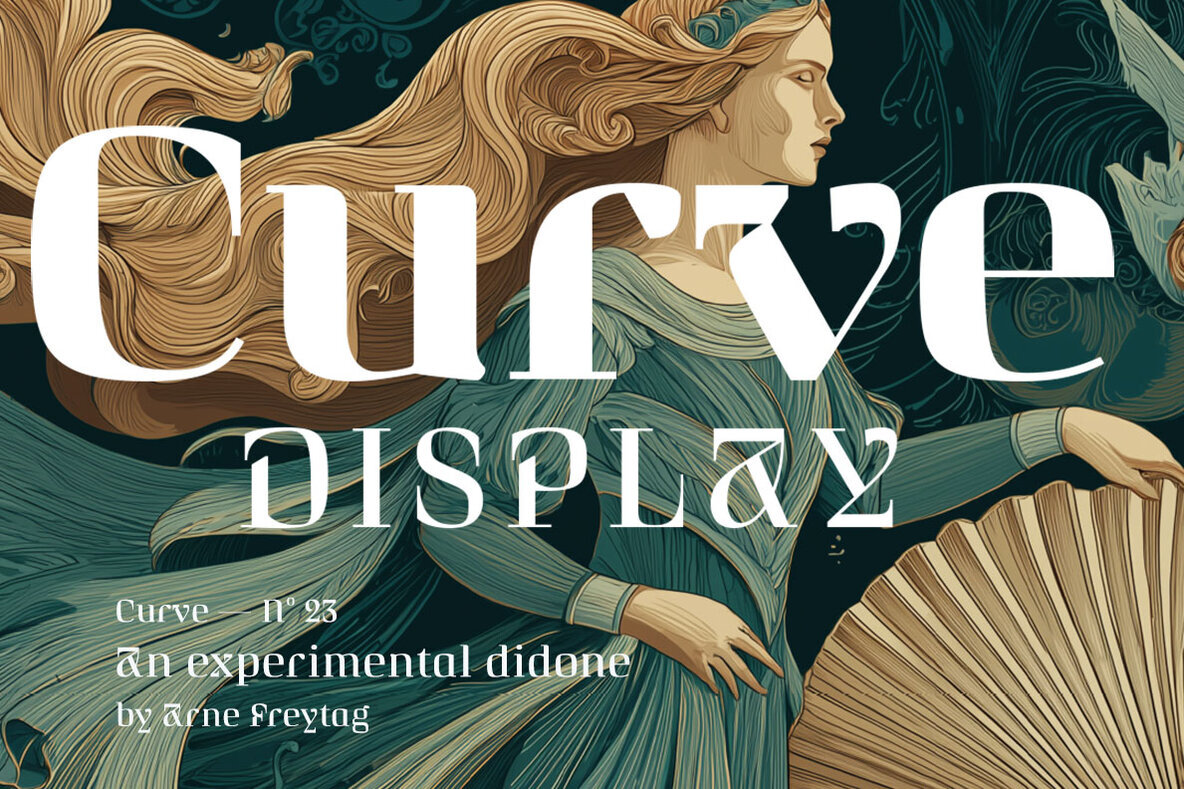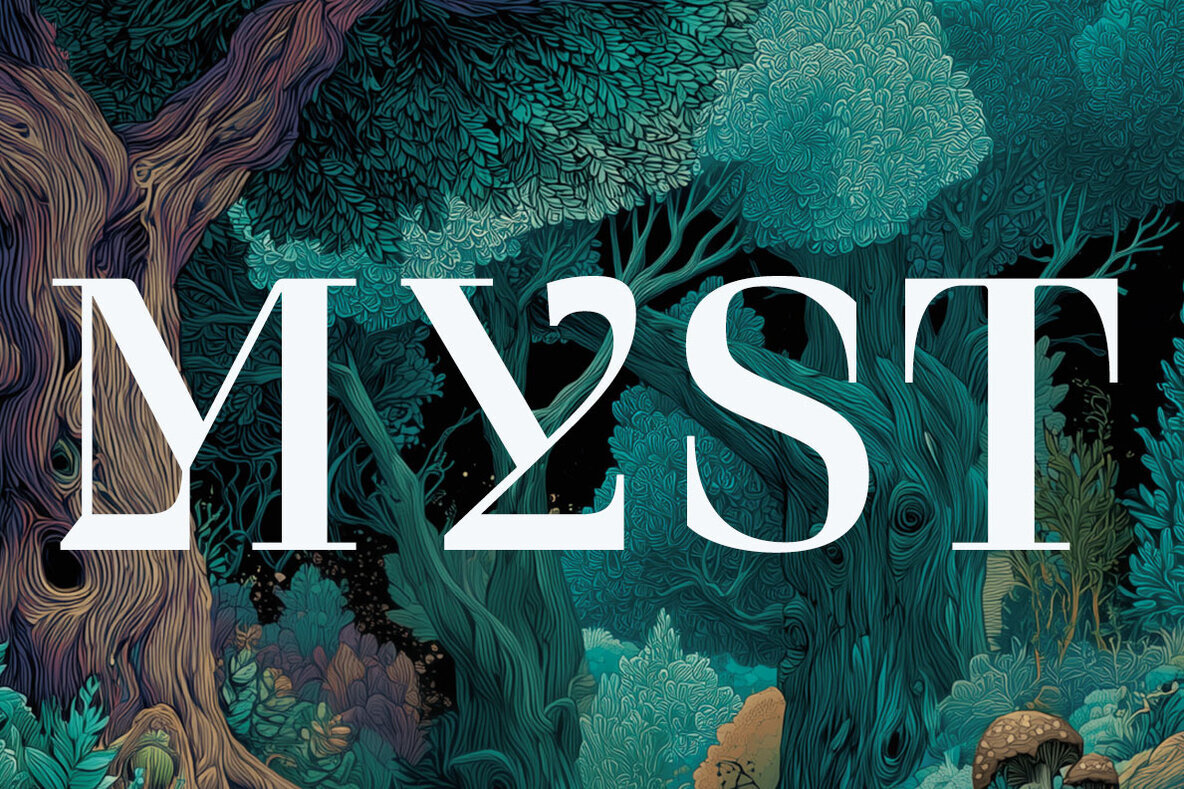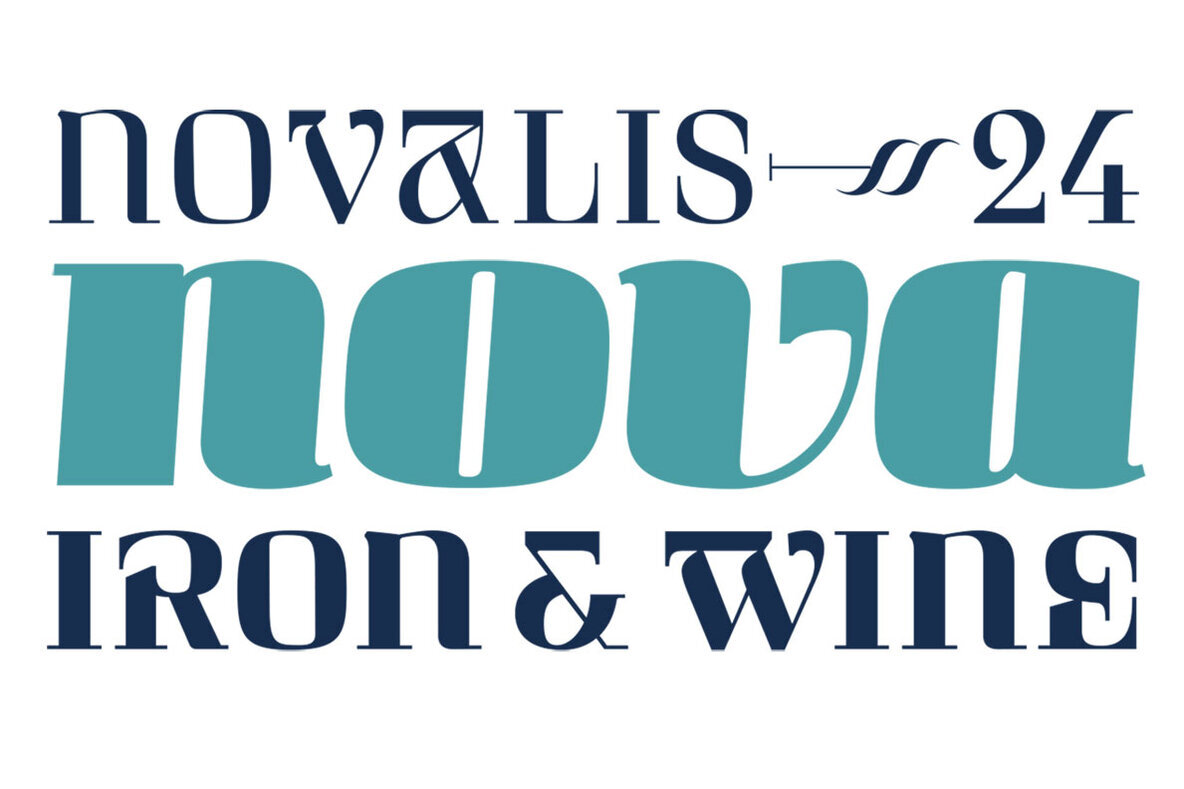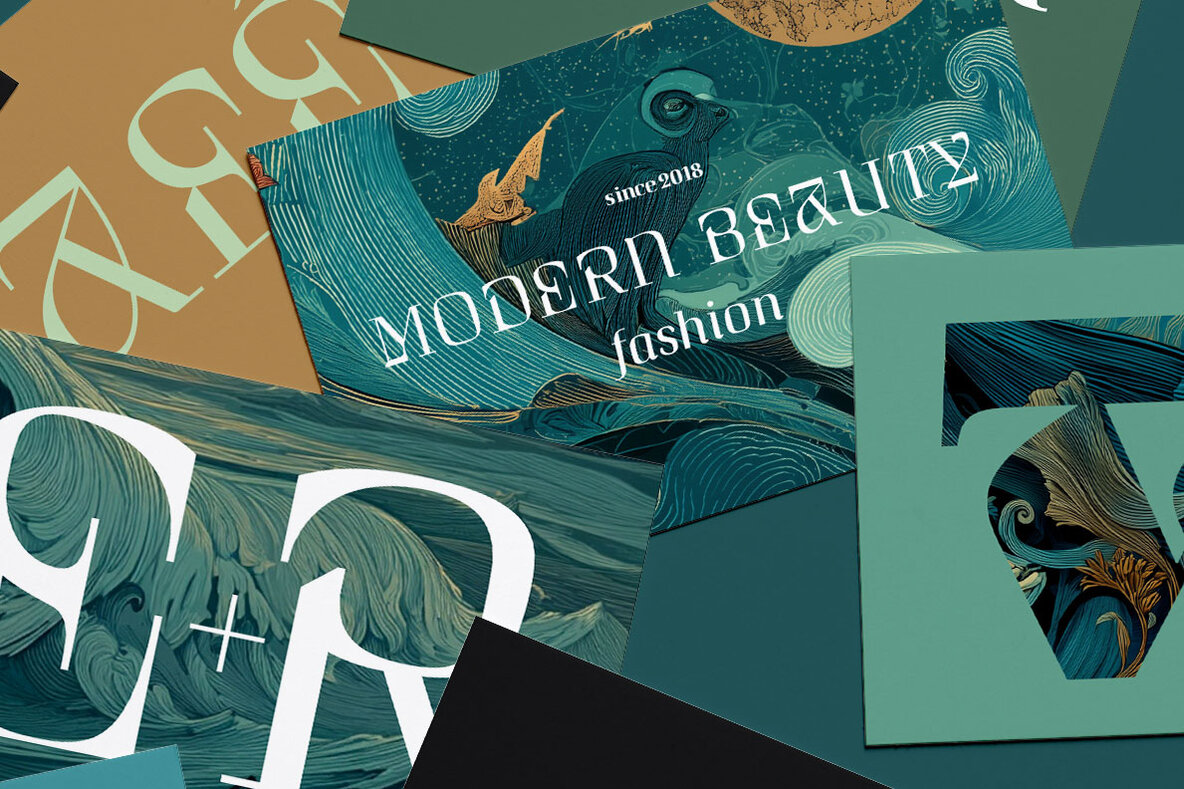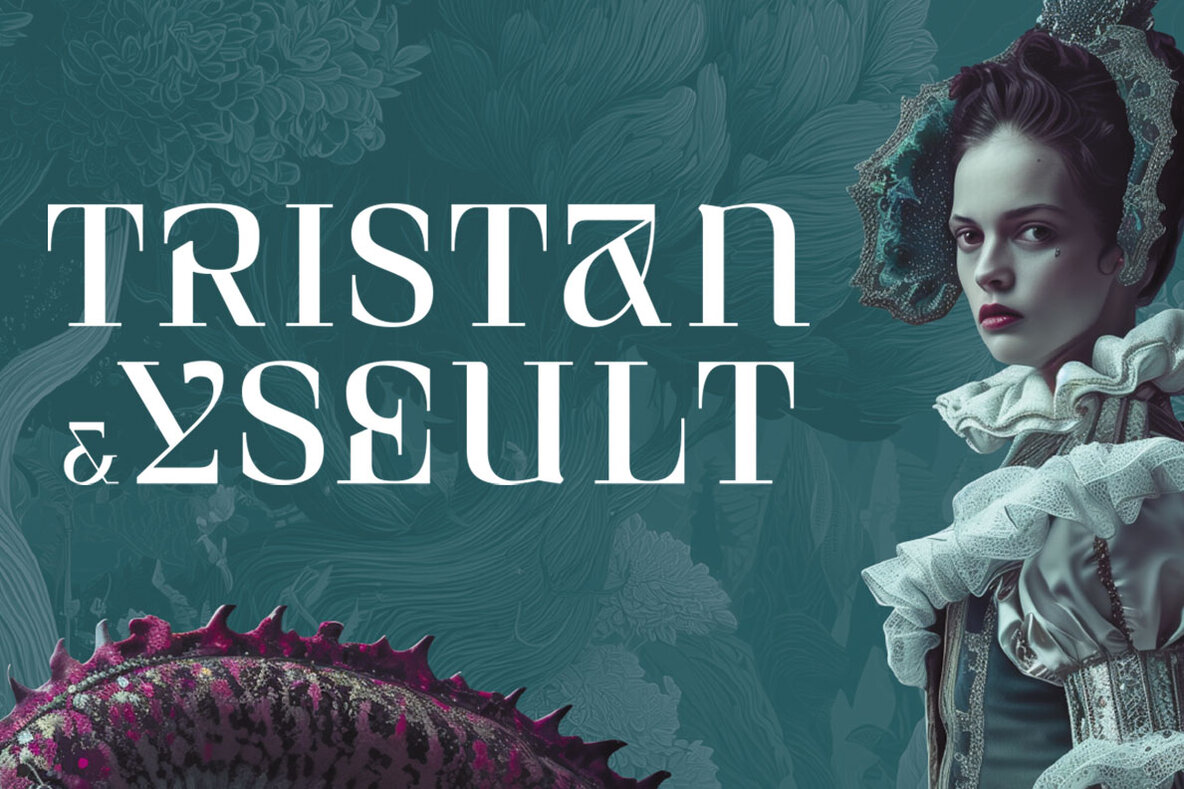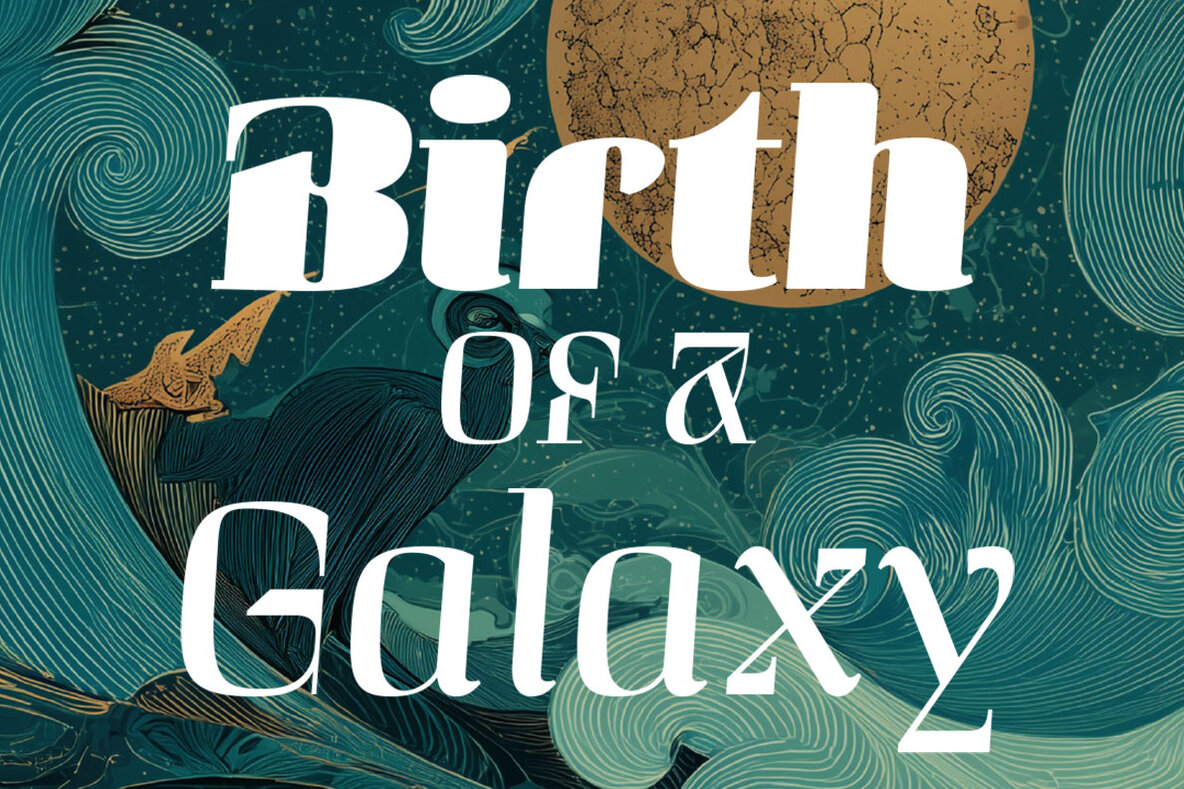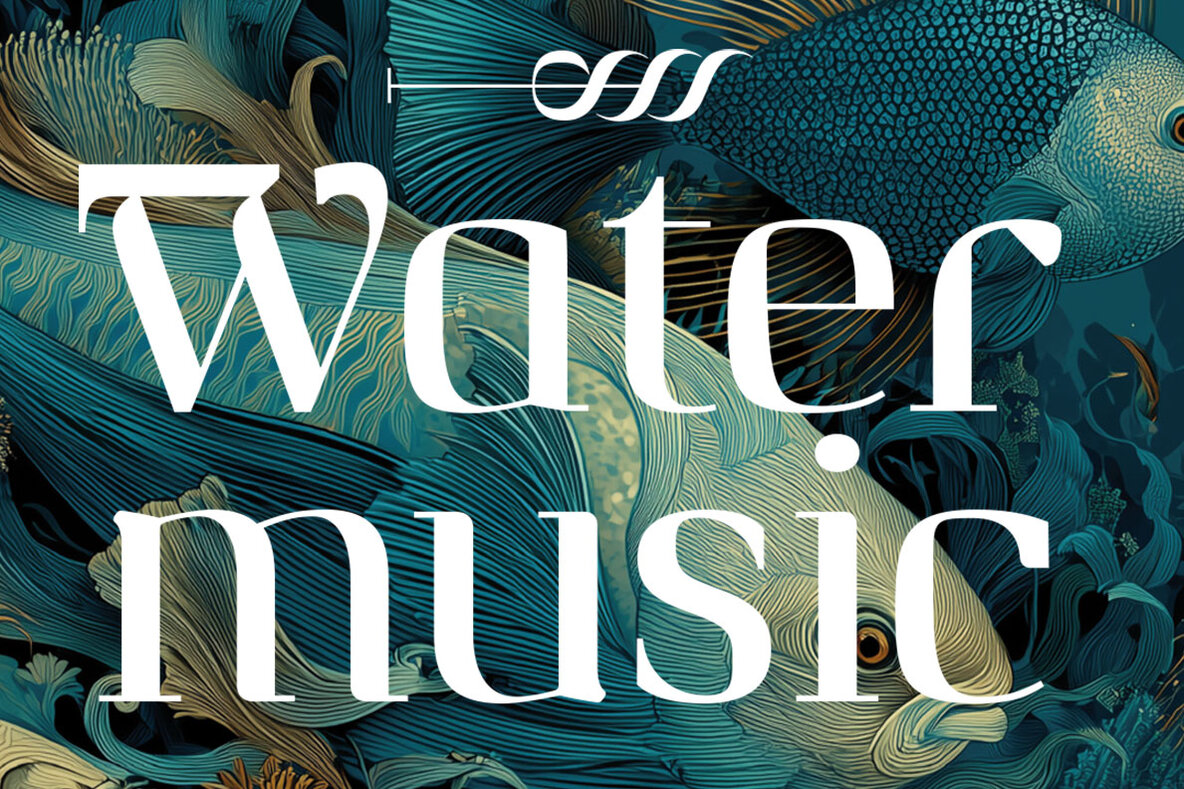
Curve Display Font
Curve Display is an innovative variant of the Curve typeface, offering a unique blend of the refined Didone tradition and avant-garde deconstruction. This contemporary display font features a large x-height and super-elliptical forms that are intentionally fragmented, mirrored, or broken, creating a striking balance between elegance and modernity. Curve Display is designed for those who wish to make bold visual statements, challenging conventional notions of legibility and perception.Curve Display: A Fusion of Classicism and Experimental Design
Arne Freytag was born in Hamburg in 1967. In 1995, he won a scholarship to study Graphic Design at the Kunstschule Alsterdamm art school in Hamburg. As a postgraduate in 1998, he attended the Atelier National de Recherche Typographique in Paris. He has published various articles in Tipografica, étapes and the...